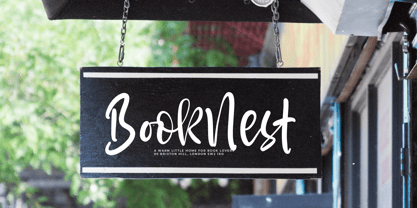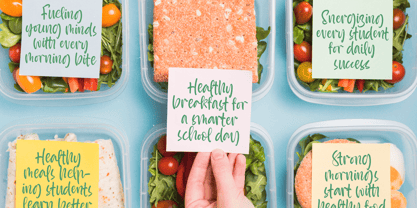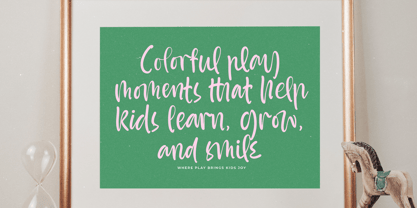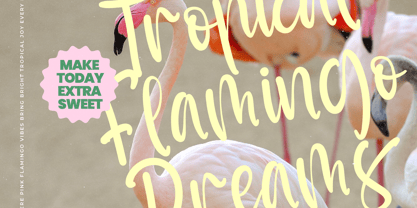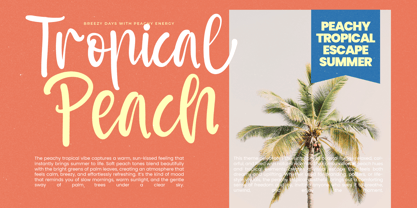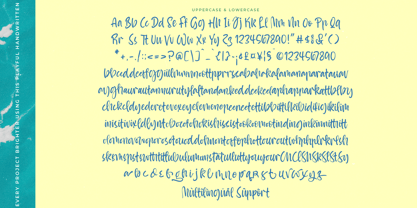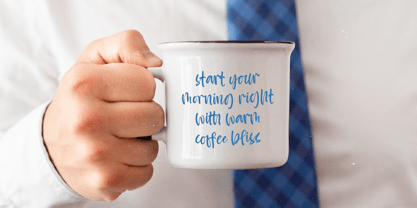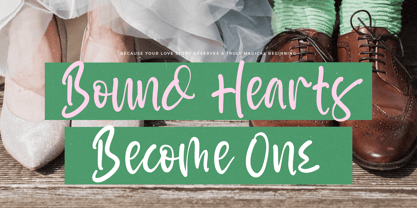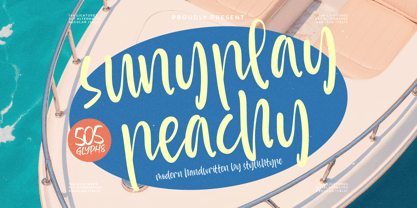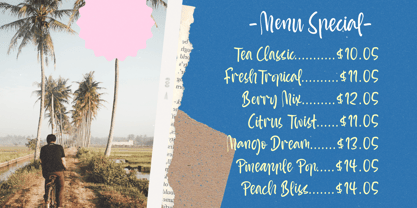
Sunyplay Peachy
Die Schriftfamilie Sunyplay Peachy wurde von Heru Utama Putra entworfen und von Stylishtype Studio veröffentlicht. Sunyplay Peachy enthält 2 Stile und Familienpaketoptionen. Mehr über diese Familie
Sunyplay Peachy - Modern Handwritten Font , from Stylishtype , Suitable for any projects such as: logos, branding projects, homeware designs, product packaging, mugs, quotes, posters, shopping bags, t-shirts, book covers, name card, invitation cards, greeting cards, label, photography, watermark, special events, and all your other luxury and beautiful projects that need a Luxury Script taste.